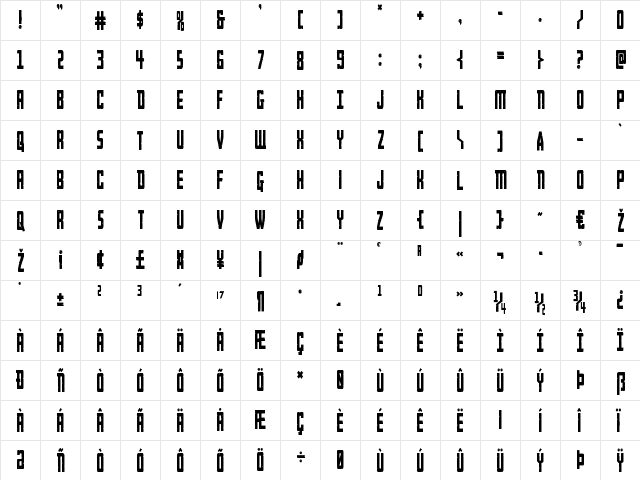
Rockledge Condensed Condensed
Design Context for Rockledge Condensed Typeface
Rockledge Condensed takes a measured approach to typography — its balanced proportions and neutral character make it a reliable workhorse for both digital and print work. The condensed width makes it efficient for tight spaces without sacrificing legibility.